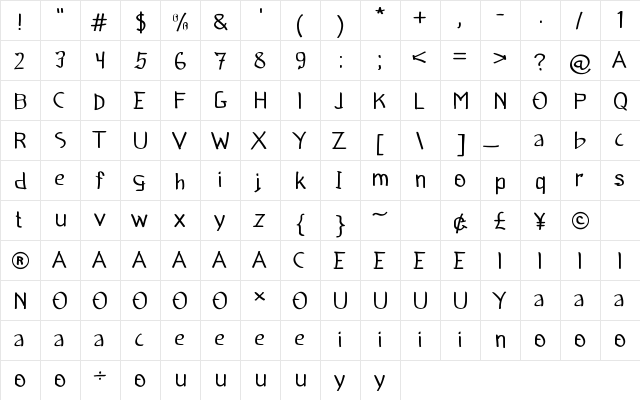
JUNKRIK Regular
| Foundry | Audiprasetya |
| Designer | Audiprasetya |
Design Context for JUNKRIK Typeface
JUNKRIK offers clean, dependable letterforms without strong stylistic allegiance, making it a practical choice for designers who need flexibility.